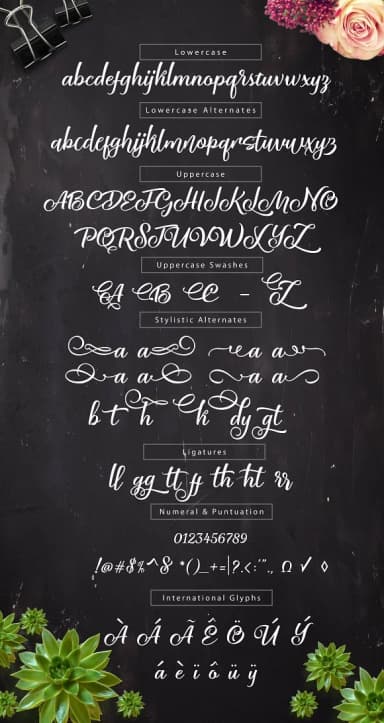
1 / 5About Himdath Font
Himdath by Olexstudio is a fluid handwritten script designed with organic letterforms and a natural, flowing rhythm that brings authentic character to contemporary creative projects. The font's refined handwritten quality makes it particularly suited for wedding invitation suites, where its elegant flow and distinctive personality enhance formal announcements and celebratory designs. Beyond weddings, the script performs exceptionally well on boutique cosmetics packaging, Etsy product labels, and lifestyle social media graphics, where its balanced readability and artistic character capture audience attention while building memorable brand recognition. The consistent stroke weight and clean execution ensure strong legibility across various sizes, from intimate product packaging to large-format display graphics and signage. Himdath appeals to designers and brands seeking a handcrafted aesthetic without sacrificing professionalism, making it ideal for small business branding, artisanal product packaging, creative freelance portfolios, and upscale service businesses that need to communicate both creativity and genuine approachability. The script's natural versatility extends across both digital and print applications, pairing effectively with minimal design compositions and photographic layouts that genuinely benefit from an organic, human touch. Discover Himdath on Creative Fabrica and bring this expressive handwritten script into your design toolkit.
Browse all βWhat pairs well with Himdath Font?
Himdath Font is a script font that shines as a display or heading face. Pair it with a clean sans-serif or serif font for body text β the contrast creates a clear hierarchy while the two styles stay balanced and easy to read.
Himdath Font
by Olexstudio